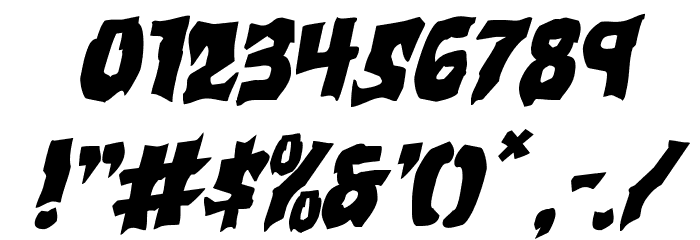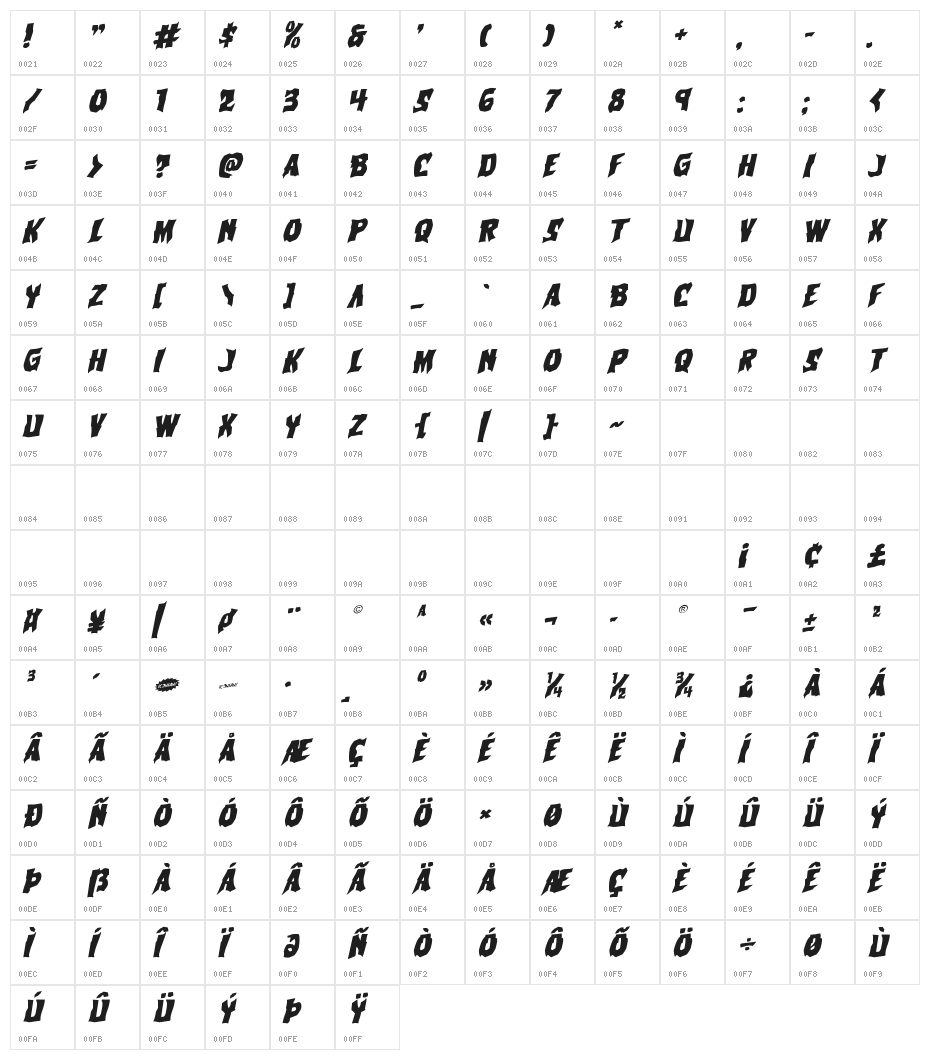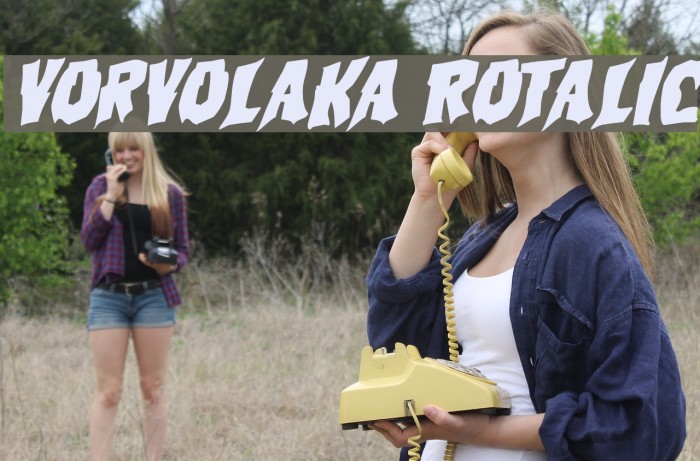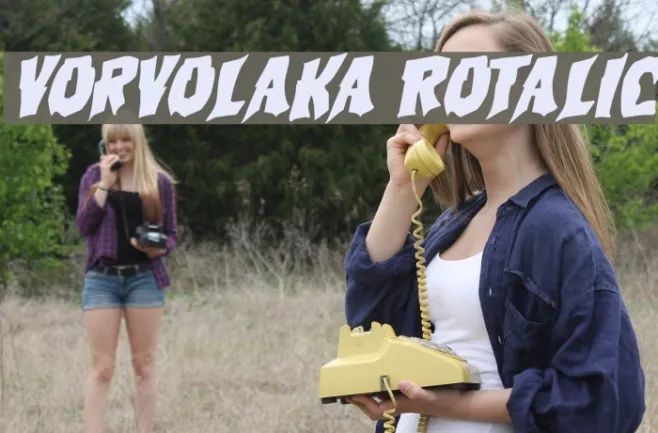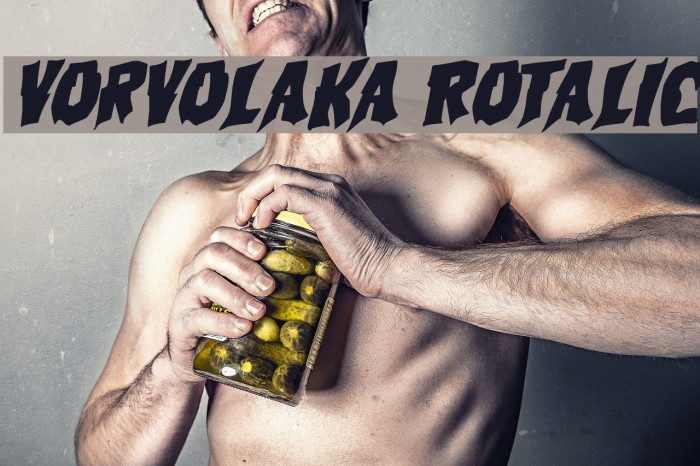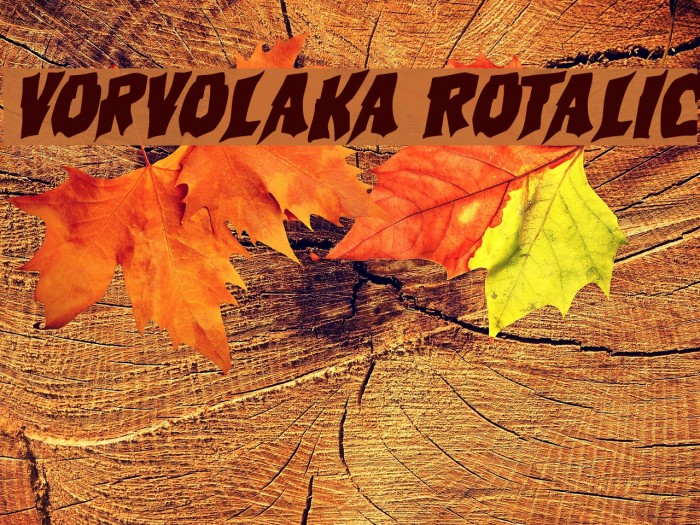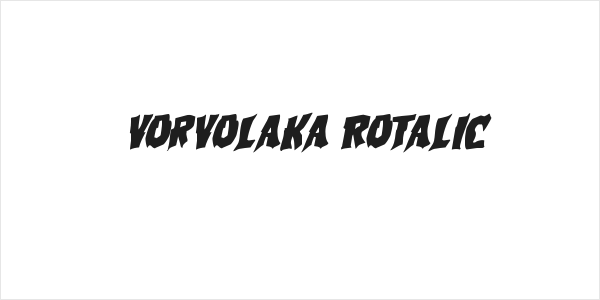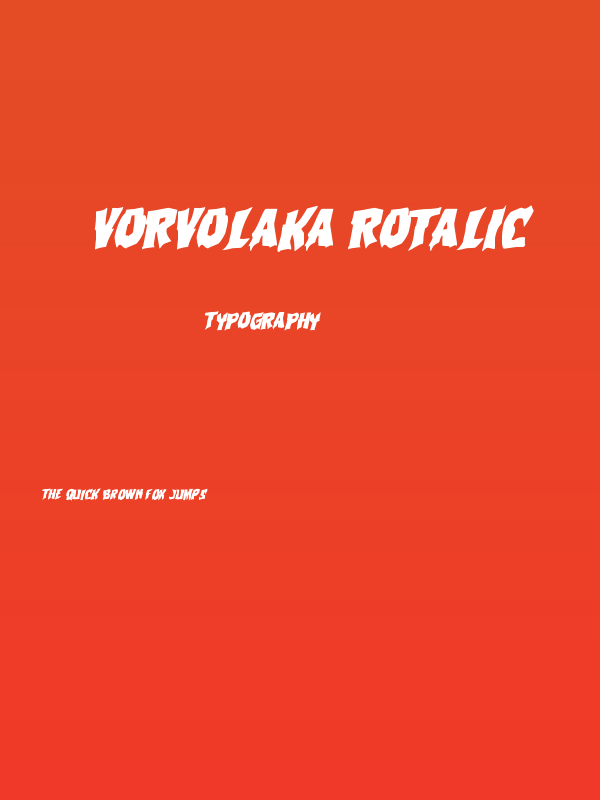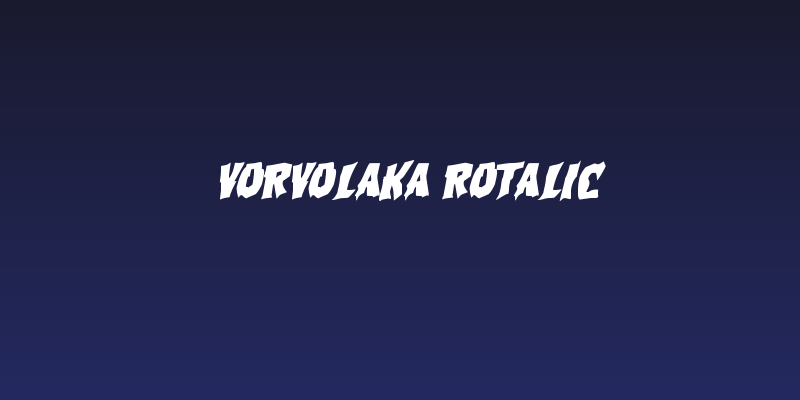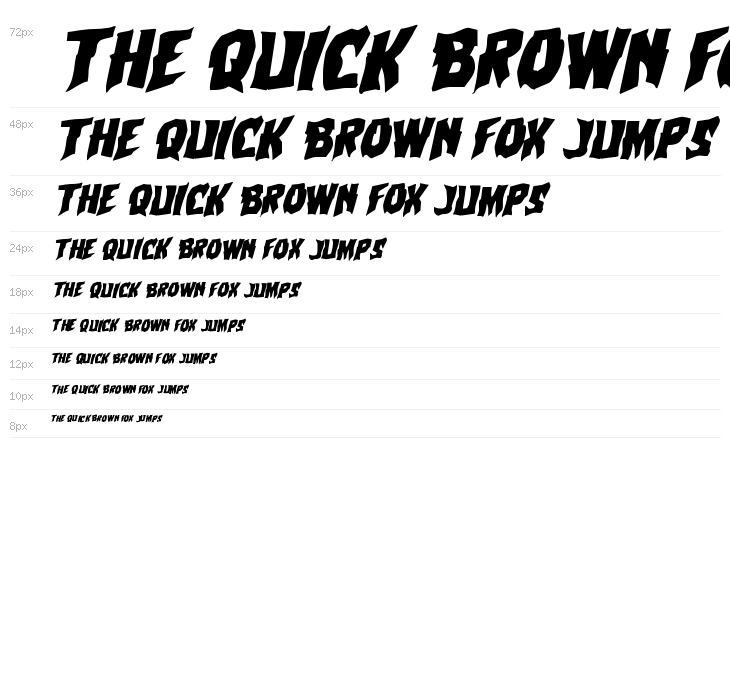
Vorvolaka Rotalic Font
Vorvolaka Rotalic Description
This font features a bold and dynamic style with sharp, angular edges and a slightly distorted appearance, giving it a unique and edgy look. The characters are heavily stylized, with an aggressive slant that adds a sense of motion and intensity. The uppercase and lowercase letters maintain a consistent design, ensuring readability while still offering a distinct visual impact. The numbers and special characters follow the same design principles, making them cohesive with the rest of the font. This font is ideal for projects that require a strong, impactful presence.
| Overall Style | Modern, Edgy |
| Proposed Projects | Ideal for music album covers, video game titles, movie posters, and branding for edgy or alternative products. |